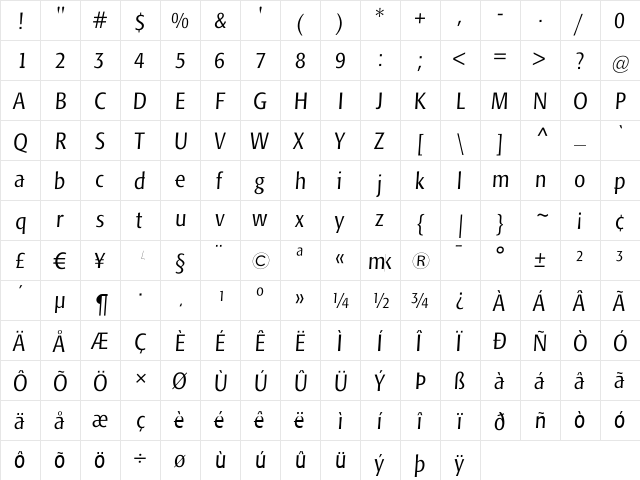
FromageCondOblique Regular Font Preview
Design Context for FromageCondOblique Typeface
FromageCondOblique offers clean, dependable letterforms without strong stylistic allegiance, making it a practical choice for designers who need flexibility. The dynamic lean of this cut emphasises speed and emphasis in any layout. The condensed width makes it efficient for tight spaces without sacrificing legibility.